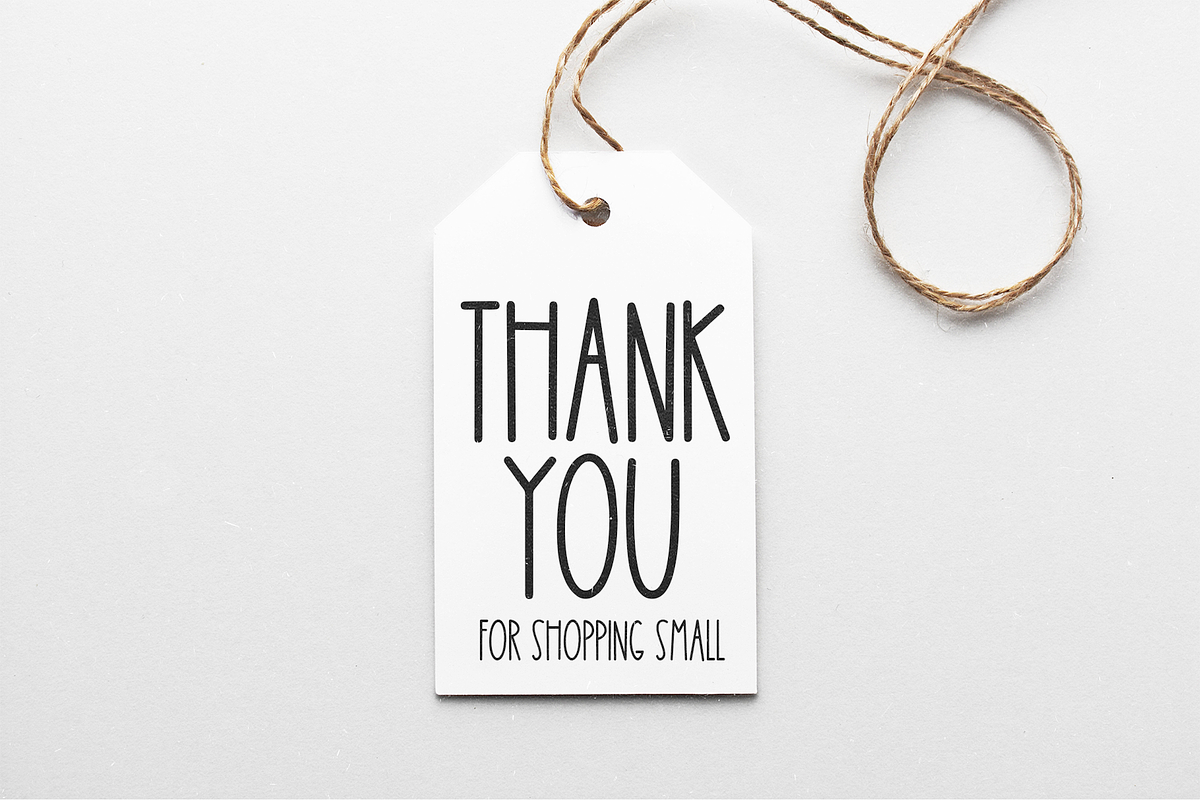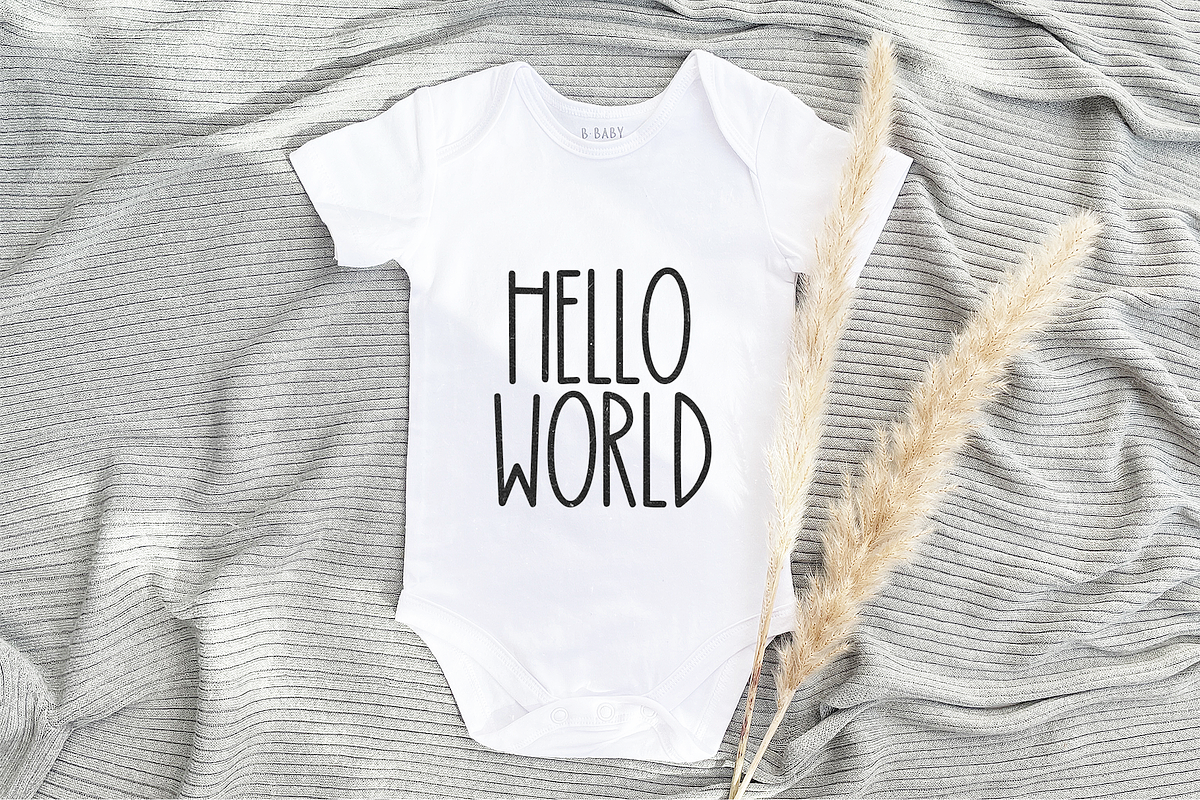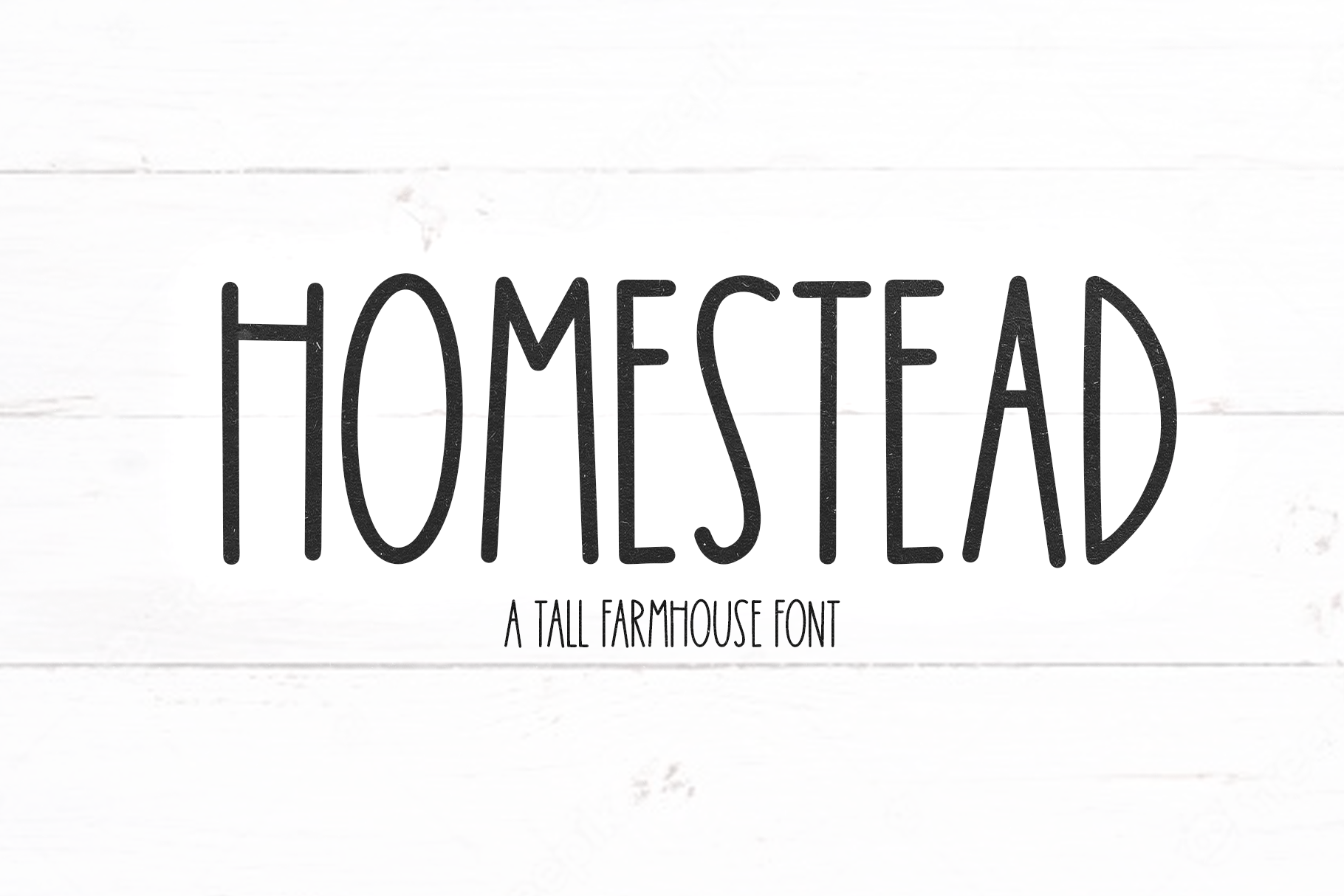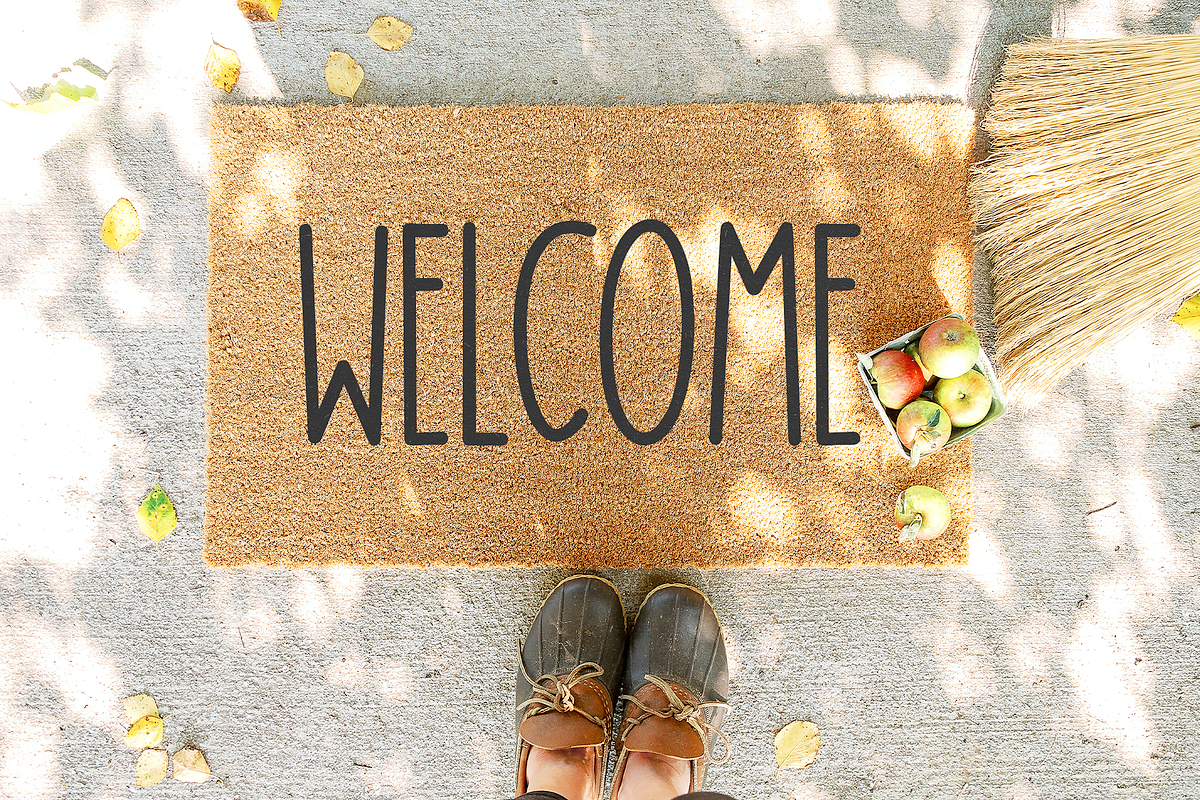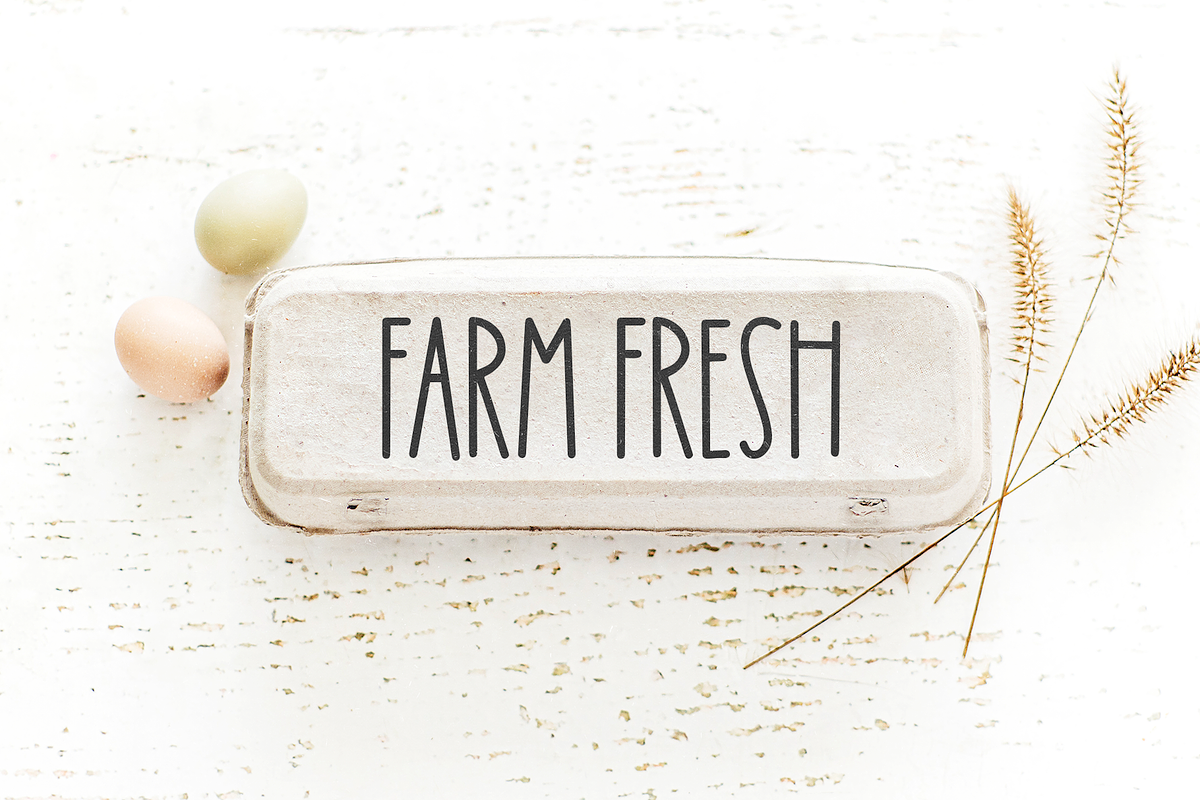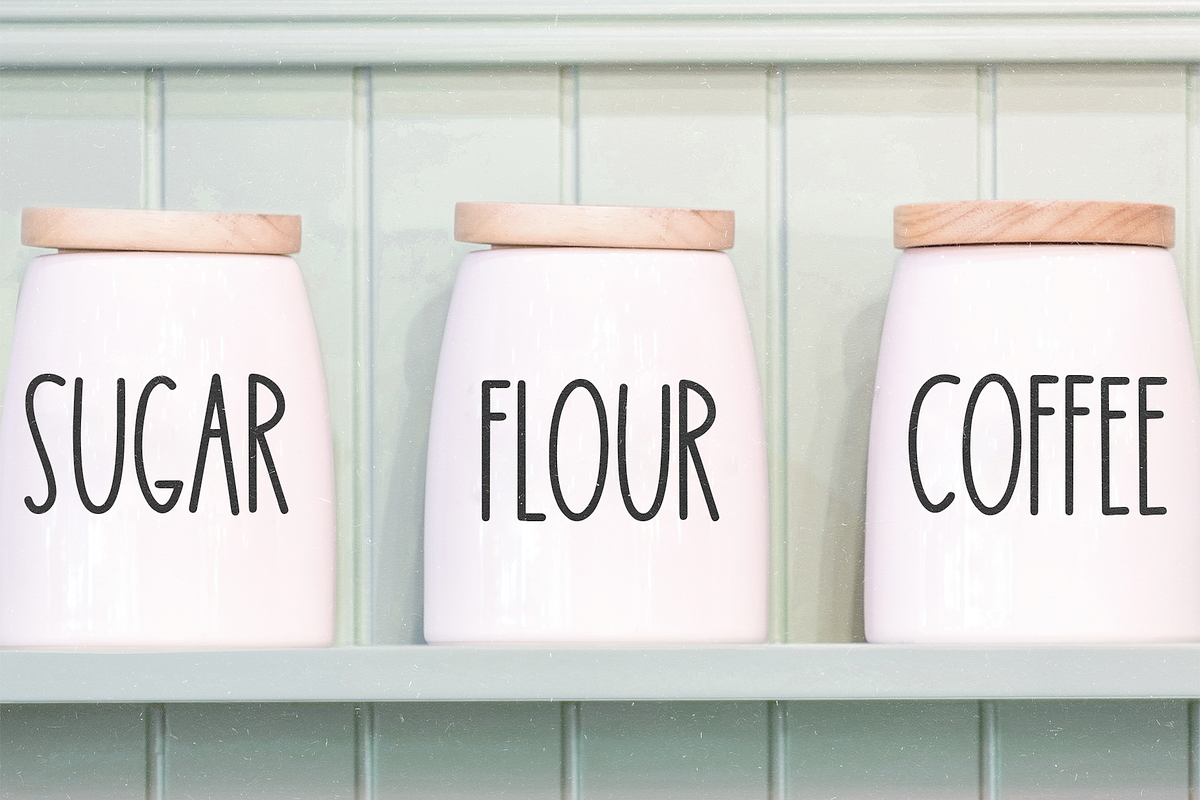
Homestead | Tall Farmhouse Font
Homestead is a tall farmhouse font.
This font is perfect for farmhouse decor, pantry labels, logos, branding, shirts, invitations, procreate cricut projects, and more!